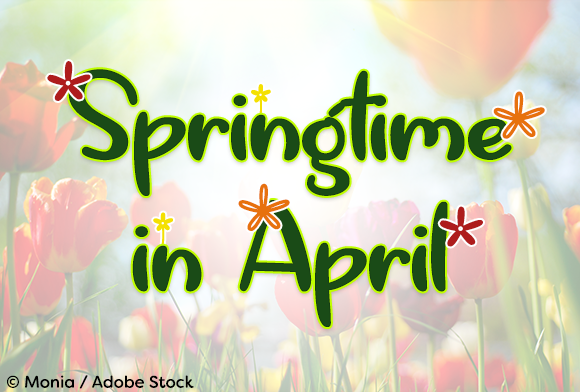
Springtime in April Font
About Springtime in April Font
Springtime in April is a beautiful and friendly font, ideal for Springtime designs and type-based projects. This handwritten font has a genuine and stylish feel.